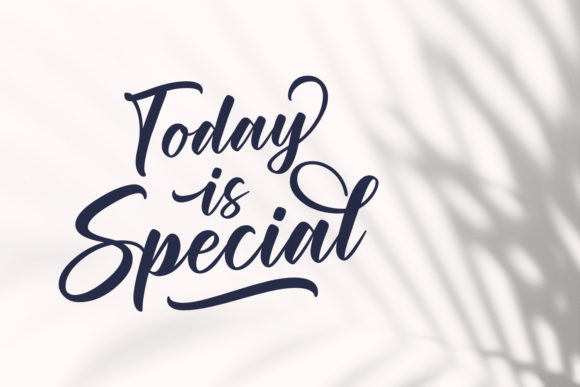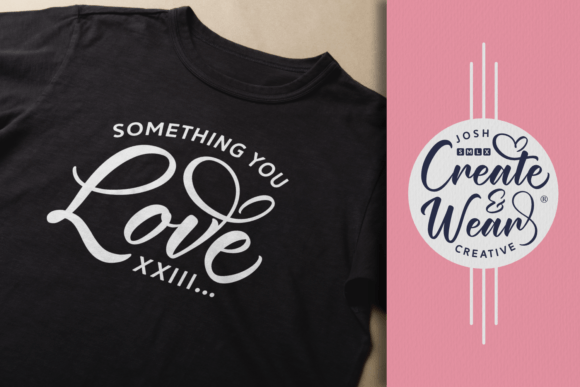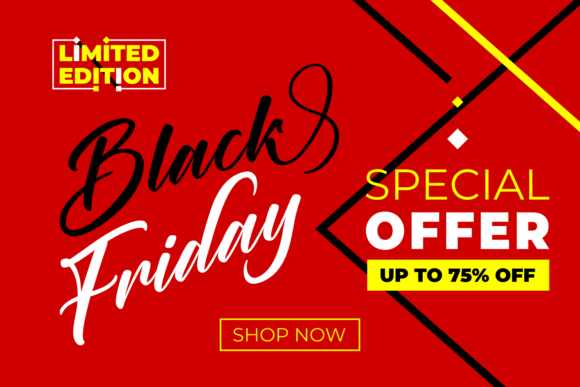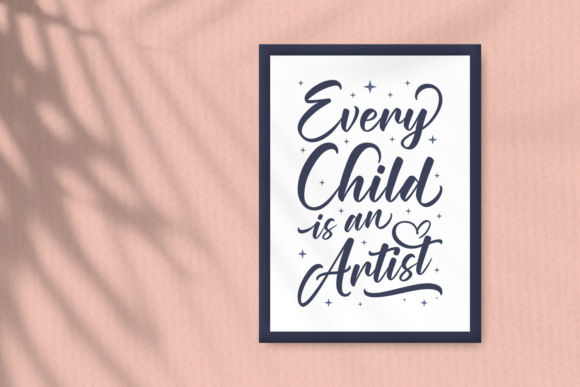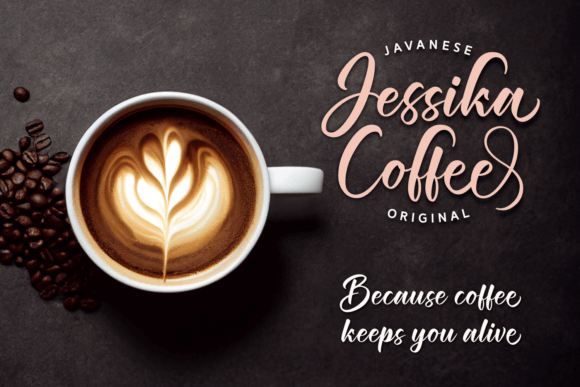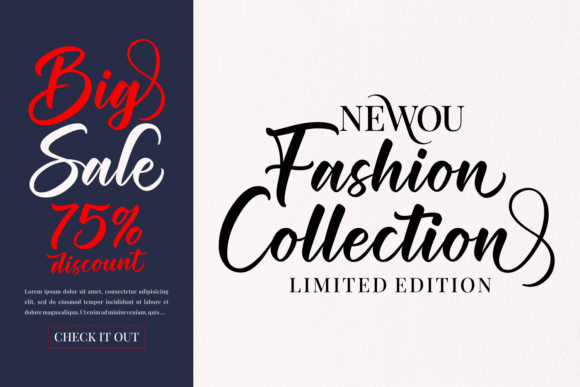
Introduction to Angel Jessie Font
Have you ever been stuck on a creative project, searching for that perfect font to bring your design to life? As designers, we know how crucial it is to find the right typography to convey the message and evoke the desired emotions. For those seeking a touch of elegance and sophistication, the Angel Jessie Font is sure to impress. This beautiful script font is perfect for adding a personal touch to your designs, from wedding invitations to greeting cards, and even logos.
What sets Angel Jessie Font apart is its versatility and high quality, making it a valuable resource for designers. With its PUA encoded features, you can easily access all the glyphs and ligatures, allowing for seamless integration into your creative project. Whether you’re working on a free download or a paid design, this font is sure to elevate your design to the next level.
Key Features of Angel Jessie Font
- Designed with a unique, elegant style, making it perfect for projects requiring a touch of sophistication and refinement.
- Supports a wide range of languages, including Latin, Cyrillic, and Greek, making it a versatile design resource for international projects.
- Angel Jessie Font is a highly customizable font, allowing designers to adjust font sizes, colors, and styles to suit their creative vision.
Honest Review: Angel Jessie Font
I recently stumbled upon the Angel Jessie Font, and I must say, it’s a fantastic addition to any design project. This beautiful, hand-drawn script font is perfect for adding a touch of elegance and sophistication to your creative project.
What works well: ✨ The Angel Jessie Font has a high quality, smooth texture that makes it a joy to work with. The font is also incredibly versatile, making it suitable for a wide range of design applications. I particularly love the transparent background option, which allows for seamless integration into any design.
What doesn’t work so well: ⚠️ One minor limitation of the Angel Jessie Font is its limited character set. While the font is perfect for titles and headings, it may not be suitable for body text due to the limited character options.
Overall, I’m thoroughly impressed with the Angel Jessie Font. It’s a fantastic design resource that’s perfect for anyone looking to add a touch of sophistication to their creative project. And the best part? It’s available for free download, making it a must-have for any designer.
- Perfect for titles and headings
- High quality, smooth texture
- Limited character set (not suitable for body text)
Angel Jessie Font
Common Use Cases for Angel Jessie Font
The Angel Jessie Font is ideal for creative projects that require a high-quality, transparent background. It’s perfect for:
– Social media graphics
– Presentation design
– Digital invitations
By downloading Angel Jessie Font, users can elevate their design projects to the next level. Its versatility and high-quality design make it a valuable addition to any design toolkit. Whether you’re a seasoned designer or a newcomer to the world of design, Angel Jessie Font is an excellent choice for anyone looking to add a touch of sophistication to their creative projects. Don’t hesitate to try it out – download Angel Jessie Font today and discover its full potential!